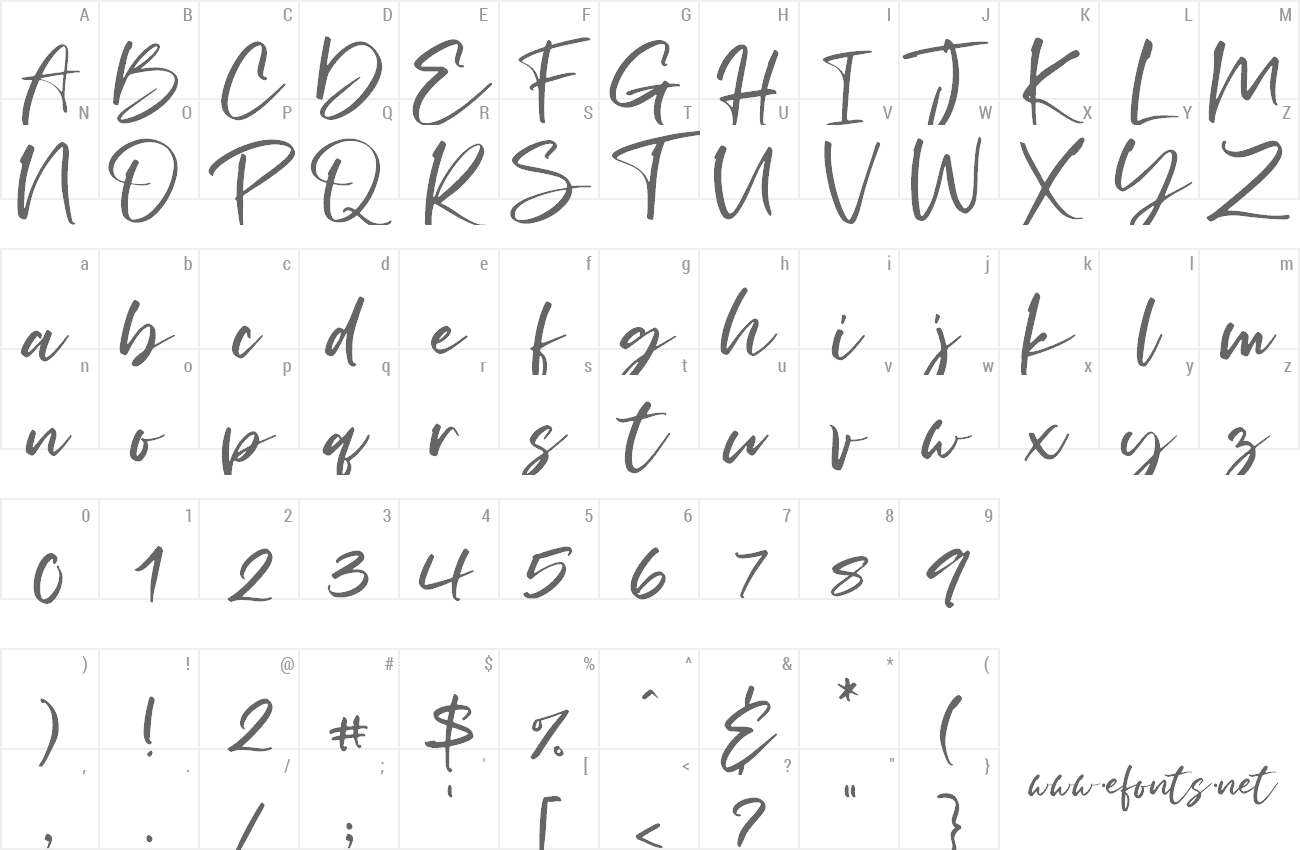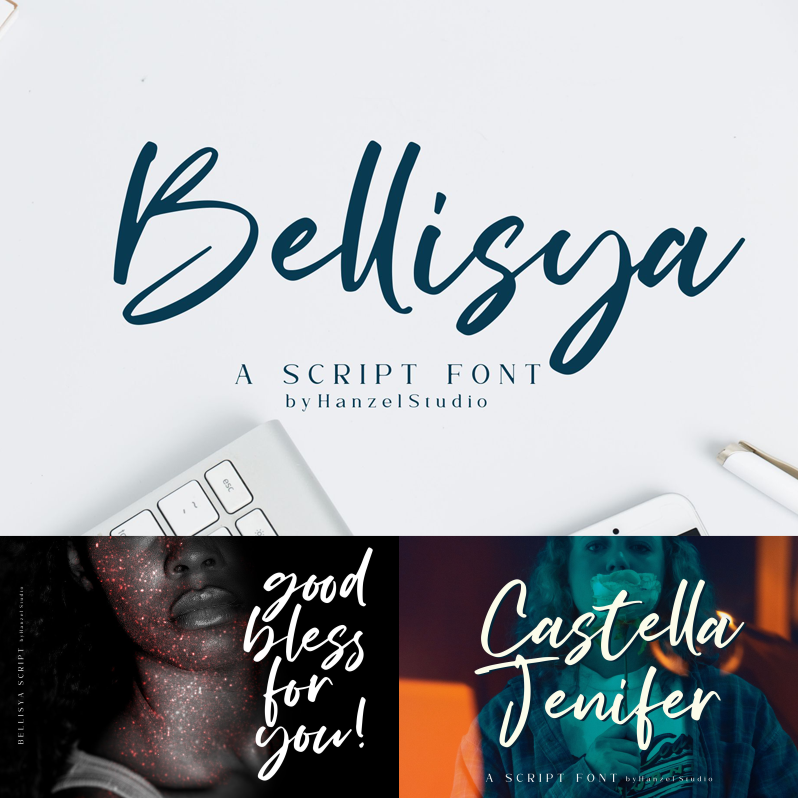
Preview and download Bellisya Font. Created by Hanief Farandi in Script Handwritten styles with Free for personal use license.
Bellisya - Handwritten Font. Made from natural pen. it will make your design project more beautiful. The font is suitable for any design like branding, fashion, print template, quotes, wedding and etc. Link for commercial use: =========================================================== https://hanzelspace.com/product/bellisya-handwritten-font/ =========================================================== ATTENTION : WARNING!!! PENGGUNAAN FONT UNTUK KOMERSIL TANPA MEMBELI LISENSI RESMI DARI hanzelspace.com MAKA DIKENAKAN BIAYA PEMBELIAN LISENSI MINIMAL 5X DARI HARGA LISENSI !!!! IMPORTANT NOTES FOR Bellisya FONT USERS: USE OF FONT FOR COMMERCIAL WITHOUT BUYING OFFICIAL LICENSE FROM hanzelspace.com THEN PURCHASE FEES FOR PURCHASE LICENSE OF 5X MINIMUM LICENSE FROM THE LICENSE !!!! |